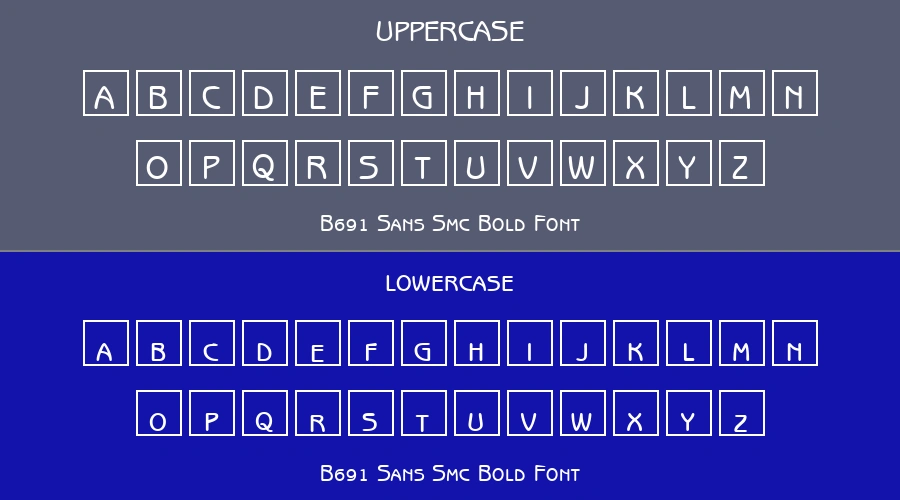
About B691 Sans Smc Bold Font
B691 Sans Smc Bold Font stands out for its distinctive combination of rounded corners and professional finish. Ideal for architectural plans, it provides the functionality and market relevance that professional projects demand. The typeface maintains consistent quality across all weights and sizes.
Key features include refined systematic design and practical small caps, enhancing typographic expression. In regulatory documents applications, B691 Sans Smc Bold Font demonstrates exceptional color application. The ascender height and educational suitability contribute to its distinctive character and professional appeal.